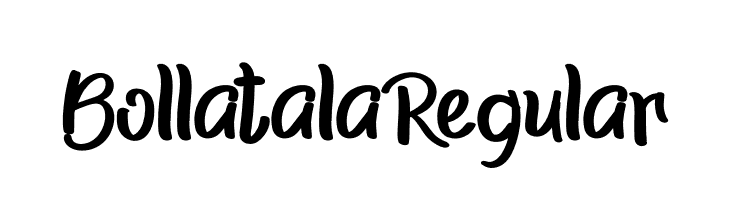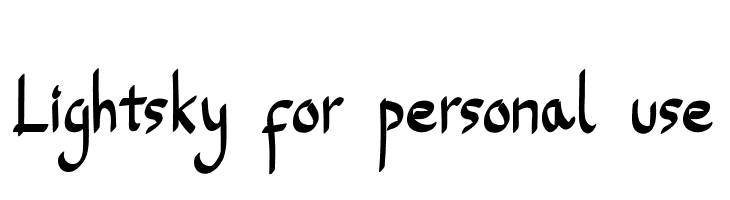
A bold, playful script font with dynamic and flowing letterforms.
A playful, handwritten font with dynamic strokes and a casual style.
A modern, narrow font with elongated letterforms and artistic curves.
A playful, bold, and rounded hand-drawn font with a whimsical style.
A bold, italic font with a modern and dynamic style.
A bold, geometric font ideal for impactful headlines.
A bold, decorative font with high contrast and a modern, geometric style.
A graceful and flowing script font with a natural handwritten style.
A futuristic, segmented font with a digital and electronic aesthetic.
A graceful and fluid script font with interconnected, cursive letters.